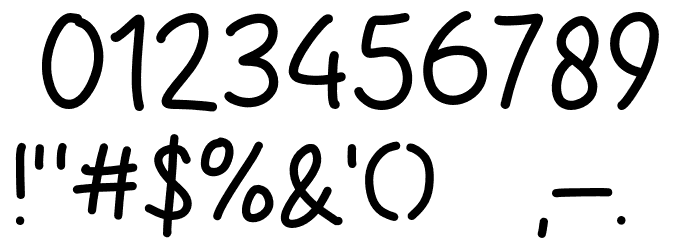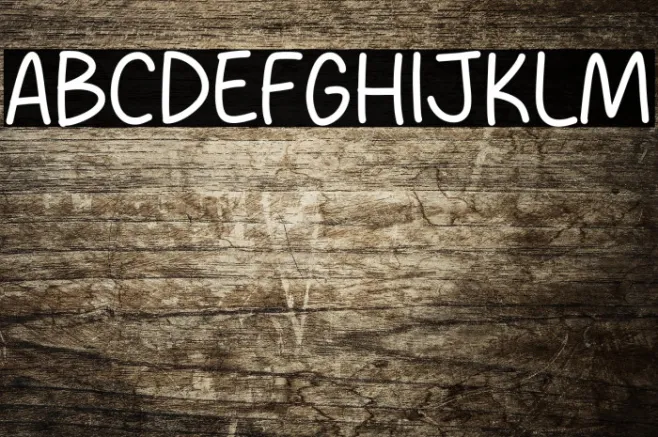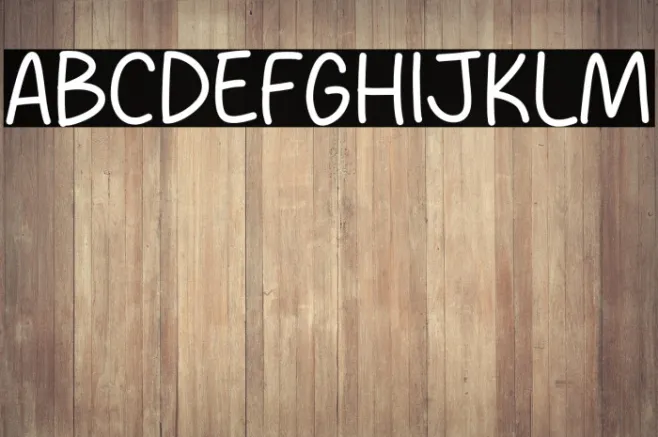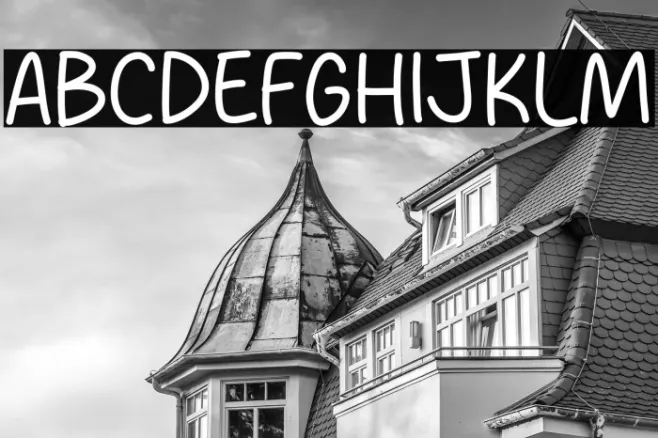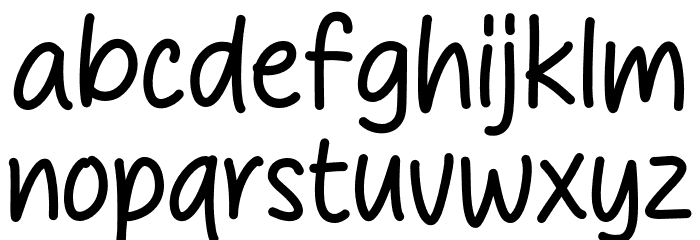
Impact Stone Font
Impact Stone Description
This font features a playful and casual handwritten style, characterized by smooth, rounded edges and a consistent stroke width. The letters are slightly tilted, adding a dynamic and informal feel. The uppercase and lowercase letters maintain a uniform height, contributing to a cohesive appearance. Numbers and special characters are designed with the same playful aesthetic, ensuring a harmonious look across all text elements. The font's simplicity and readability make it suitable for a variety of applications where a friendly and approachable tone is desired.
| Use Case | Headlines, Informal text, Branding |
| Proposed Projects | Ideal for children's books, greeting cards, casual branding, and social media graphics. |